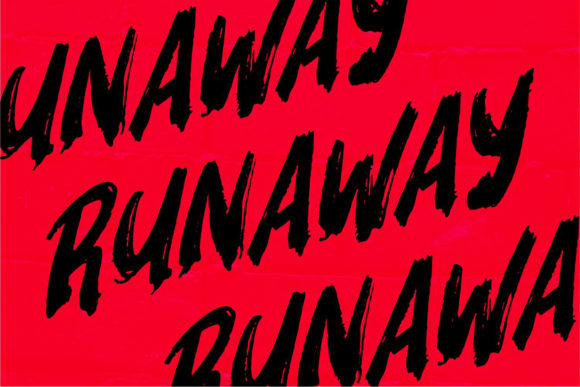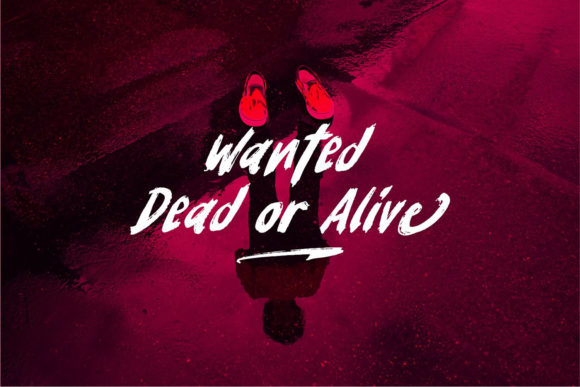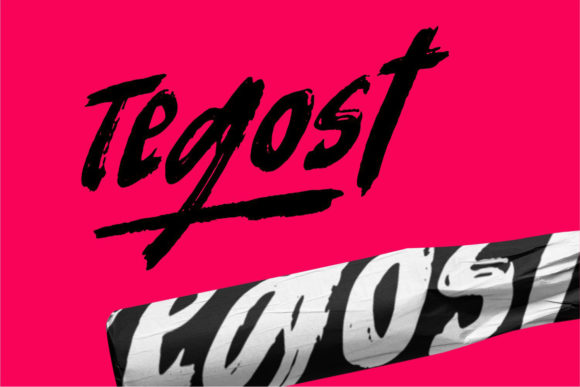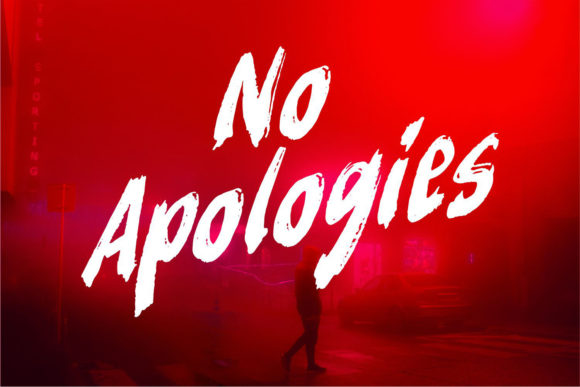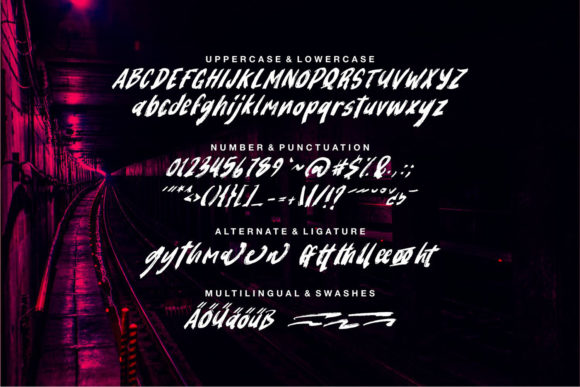
Dante Font: Unleash Your Creativity with this Cool and Rough Textured Display Font
Are you tired of using the same old fonts for your design projects? Look no further than the Dante Font, a cool and rough textured display font that’s perfect for adding a unique touch to your creative endeavors. In this article, we’ll dive into the features and benefits of the Dante Font, and explore how it can elevate your designs to the next level.
What is Dante Font?
Dante Font is a display font designed for creative professionals who want to add a bold and edgy touch to their designs. With its rough textured appearance, this font is perfect for creating visually striking headlines, logotypes, and titles that grab attention. Whether you’re working on a corporate identity, brand identity, or a personal project, Dante Font is an excellent choice.
Key Features of Dante Font
- Rough Textured Appearance: Dante Font boasts a unique, rough textured appearance that adds a touch of ruggedness to your designs.
- PUA Encoded: This font is PUA (Private Use Area) encoded, which means you can access all the glyphs and swashes with ease, giving you maximum creative control.
- Multipurpose: Dante Font is suitable for a wide range of design projects, including logotype, headline font, corporate identity, brand identity, apparel industry, poster, music, movie, game, magazine, book, comic, cartoon, YouTube, Instagram, website, and more.
- Easily Customizable: With its extensive range of glyphs and swashes, you can customize Dante Font to fit your design needs.
Use Cases for Dante Font
Dante Font is an incredibly versatile font that can be used in a variety of design projects. Here are some examples of how you can use this font:
- Logotype and Branding: Create a bold and memorable logo for your brand with Dante Font.
- Headlines and Titles: Use Dante Font to create eye-catching headlines and titles for your blog posts, articles, and social media content.
- Poster and Flyer Design: Add a touch of edginess to your poster and flyer designs with Dante Font.
- Apparel Industry: Create custom apparel with Dante Font, perfect for fashion brands, music festivals, and more.
- Movie and Game Titles: Use Dante Font to create bold and dramatic titles for your movie or game projects.
Benefits of Using Dante Font
So why choose Dante Font for your design projects? Here are some benefits of using this font:
- Unique and Creative: Dante Font offers a unique and creative way to express yourself through your designs.
- Time-Saving: With its extensive range of glyphs and swashes, you can save time and effort in creating custom designs.
- High-Quality: Dante Font is designed with high-quality and legibility in mind, ensuring that your designs look professional and polished.
In conclusion, Dante Font is an excellent choice for designers and crafters looking to add a unique and creative touch to their design projects. With its rough textured appearance, PUA encoding, and multipurpose design, this font is perfect for a wide range of applications. Whether you’re working on a corporate identity, brand identity, or personal project, Dante Font is sure to elevate your designs to the next level.